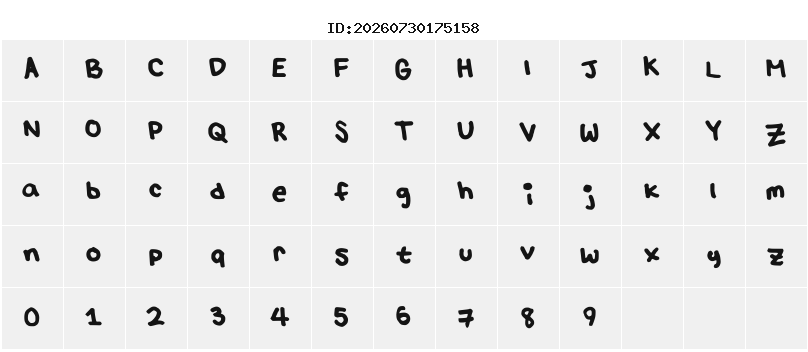
• Font Name: LulusFont
• Full Font Name: LulusFont
About LulusFont.ttf
LulusFont.ttf is a modern, elegant sans-serif font designed for ultimate readability and visual harmony. Perfect for branding, headlines, web design, and print materials.